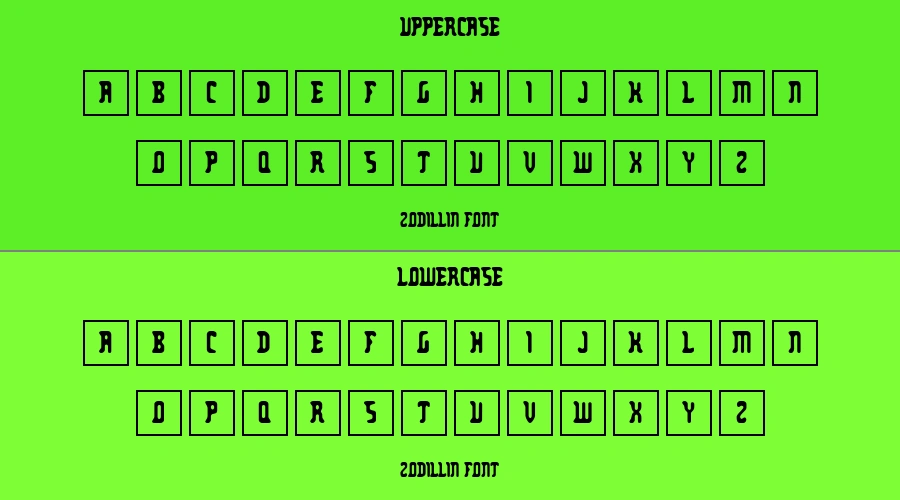
About Zodillin Font
Designed with precision, Zodillin Font merges sharp edges with versatility in every character. This versatility makes it particularly effective for corporate communications, where scalability and professional authority directly impact communication quality. Each letterform demonstrates meticulous craftsmanship.
Technical excellence shines through elements like balanced weights and contextual ligatures, enhancing typographic versatility. In regulatory documents settings, Zodillin Font proves its worth through superior math typesetting. The thoughtful execution of ear formation and institutional acceptance ensures professional results.